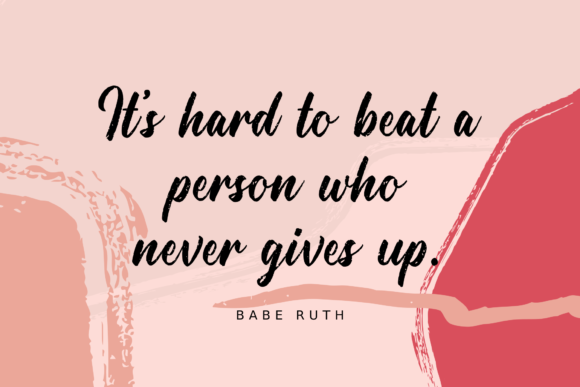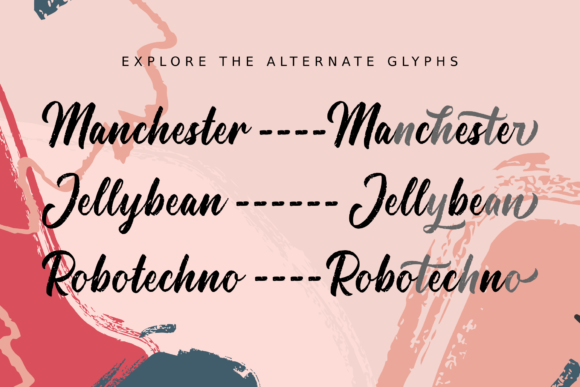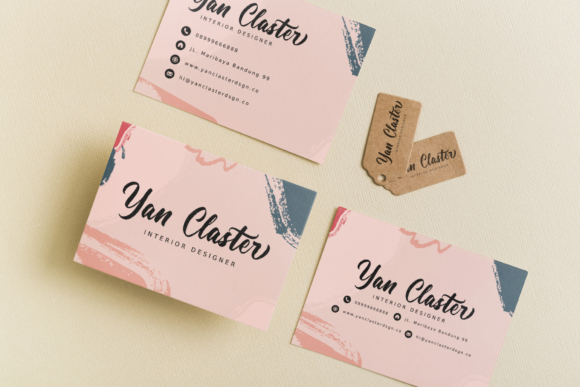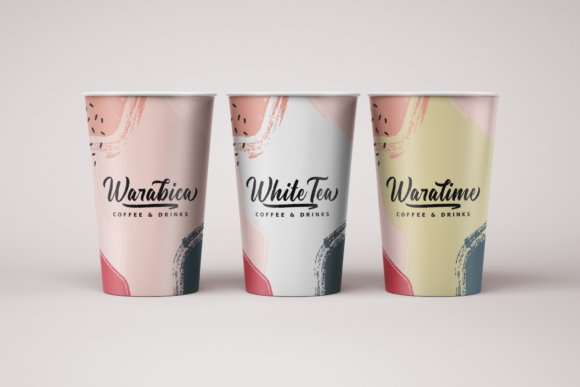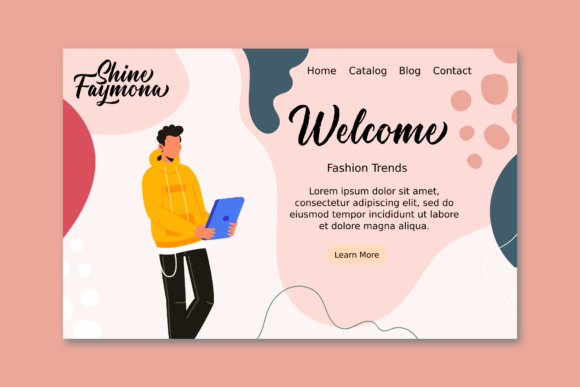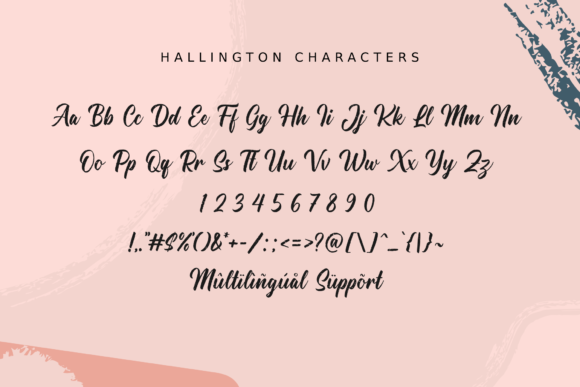
Introducing Hallington Font: Elevate Your Designs with a Handmade Brush Touch
In the world of design, fonts play a crucial role in conveying the tone and personality of a brand or project. For designers and crafters looking to add a personal touch to their work, Hallington Font is an exceptional choice. This handmade brush font is designed to elevate a wide range of design projects to the highest level, making it perfect for branding, headings, wedding designs, invitations, signatures, logos, labels, and much more!
The Charm of Handmade Brush Fonts
Handmade brush fonts have a unique charm that sets them apart from digital fonts. They bring a sense of warmth, personality, and human touch to a design, making it more relatable and engaging. Hallington Font is no exception. With its carefully crafted brush strokes and attention to detail, this font is sure to add a touch of elegance and sophistication to any design project.
What Makes Hallington Font Special?
Hallington Font is a versatile and high-quality font that offers a range of benefits, including:
- Handmade with love: Each letter has been carefully crafted to ensure a personal and unique touch.
- Brush font perfection: The font features beautiful, flowing brush strokes that give it a natural and organic feel.
- Highly versatile: Hallington Font can be used for a wide range of design projects, from branding and headings to wedding designs and invitations.
- Elegant and sophisticated: The font’s classic and timeless design makes it perfect for designs that require a touch of luxury and refinement.
Use Cases for Hallington Font
Hallington Font is an incredibly versatile font that can be used for a variety of design projects, including:
- Branding: Create a unique and memorable brand identity with Hallington Font.
- Wedding designs: Add a touch of romance and elegance to wedding invitations, stationery, and decorations.
- Invitations: Create beautiful and eye-catching invitations for special occasions, such as parties, baby showers, and graduations.
- Signatures: Use Hallington Font to create elegant and sophisticated signatures for business or personal use.
- Logos: Create a unique and memorable logo for your business or brand.
- Labels: Add a touch of personality to product labels, packaging, and marketing materials.
Tips for Using Hallington Font
To get the most out of Hallington Font, here are some tips to keep in mind:
- Use it sparingly: Hallington Font is a statement font, so use it sparingly to add emphasis and create visual interest.
- Experiment with colors: Try pairing Hallington Font with different colors to create a unique and eye-catching design.
- Mix and match: Combine Hallington Font with other fonts to create a visually appealing and harmonious design.
Hallington Font is a beautiful and versatile handmade brush font that can elevate a wide range of design projects to the highest level. With its unique charm, elegant design, and high-quality craftsmanship, this font is perfect for designers and crafters looking to add a personal touch to their work. Whether you’re creating branding materials, wedding designs, or simply want to add a touch of personality to your designs, Hallington Font is an exceptional choice.